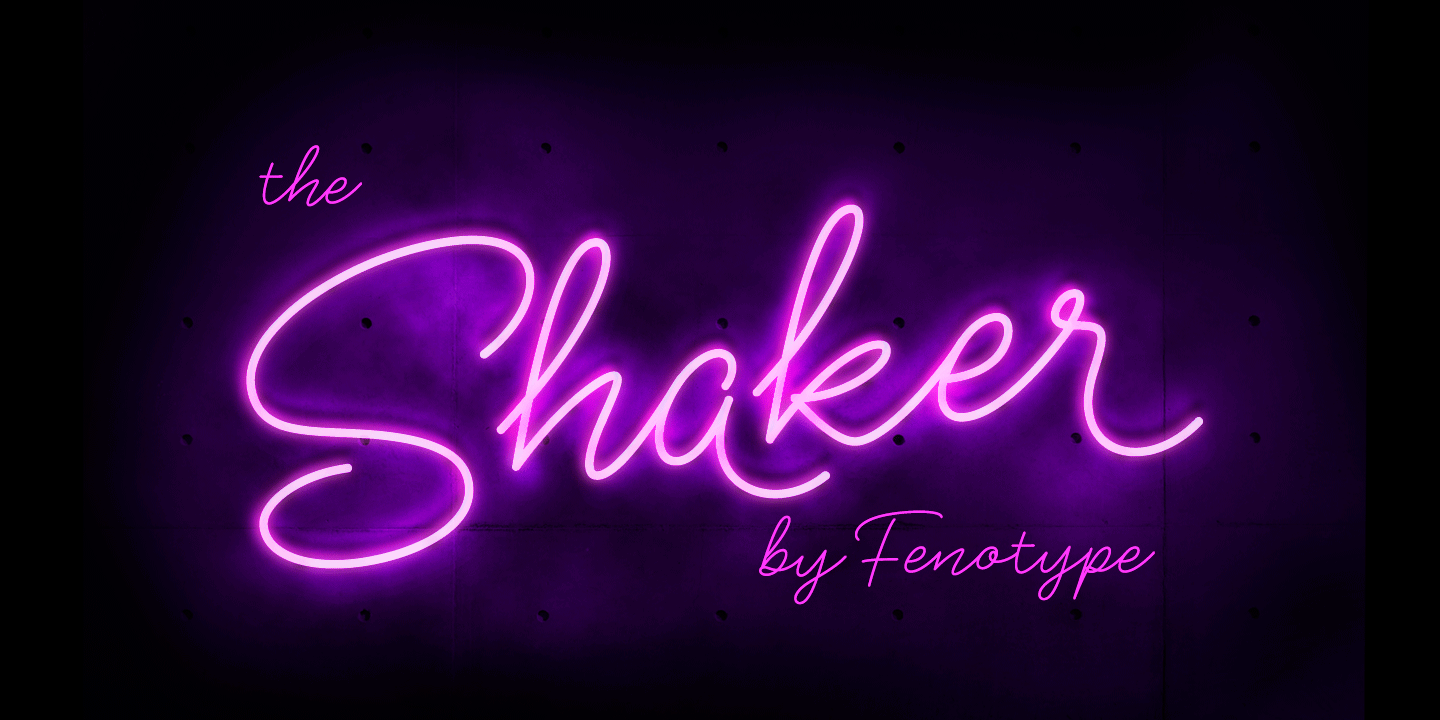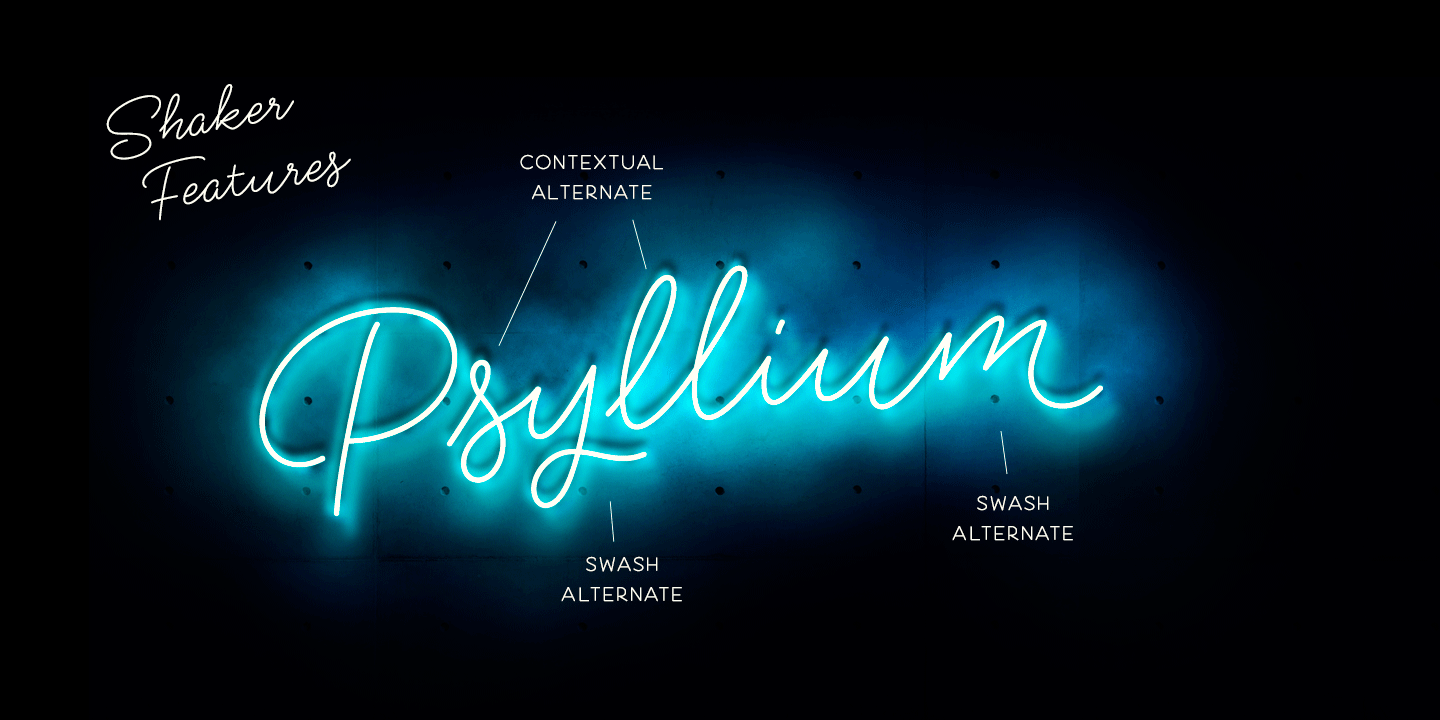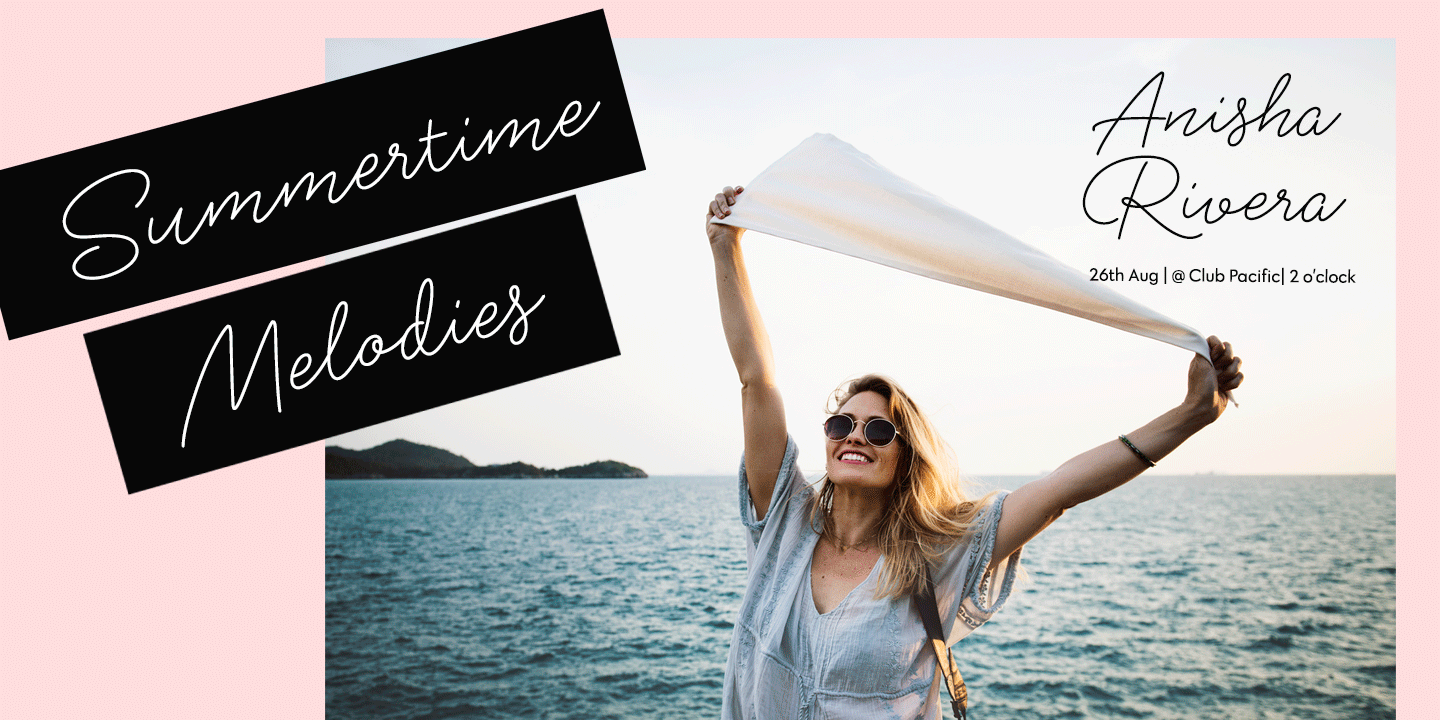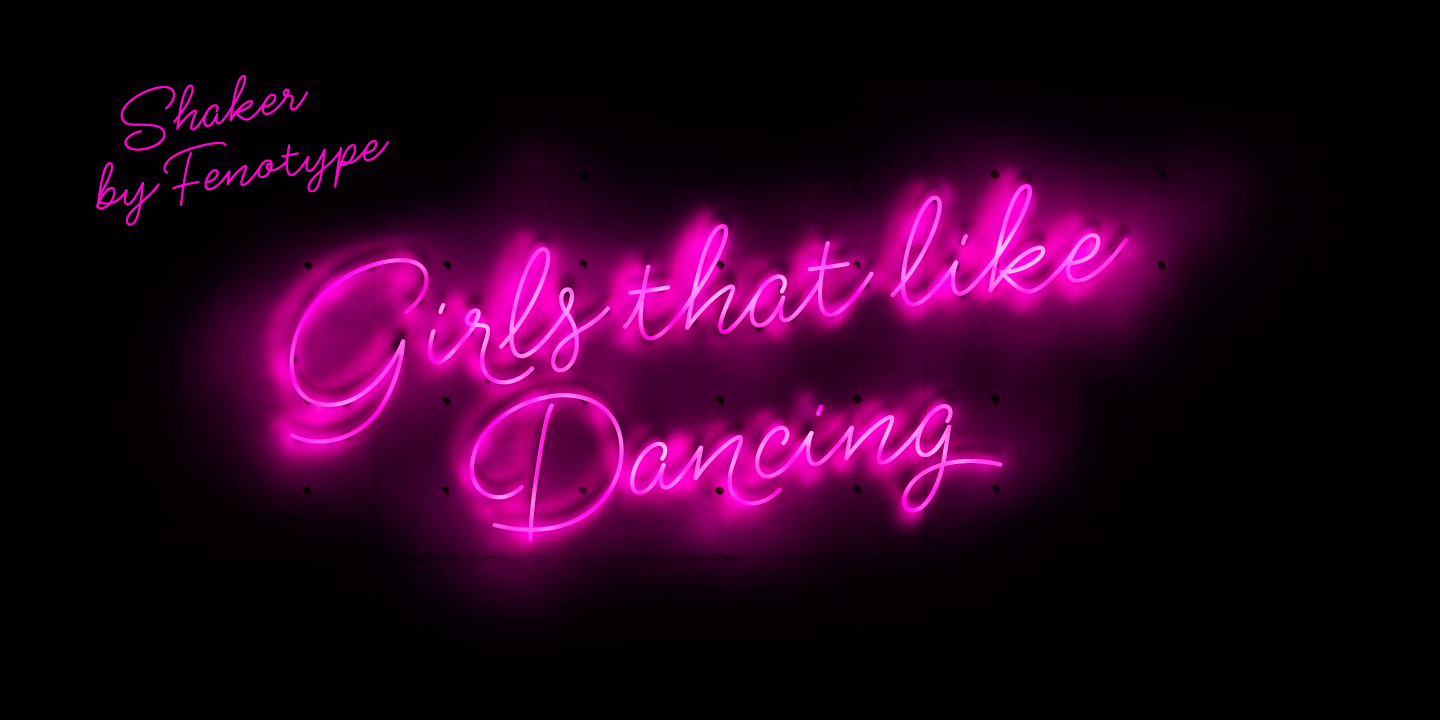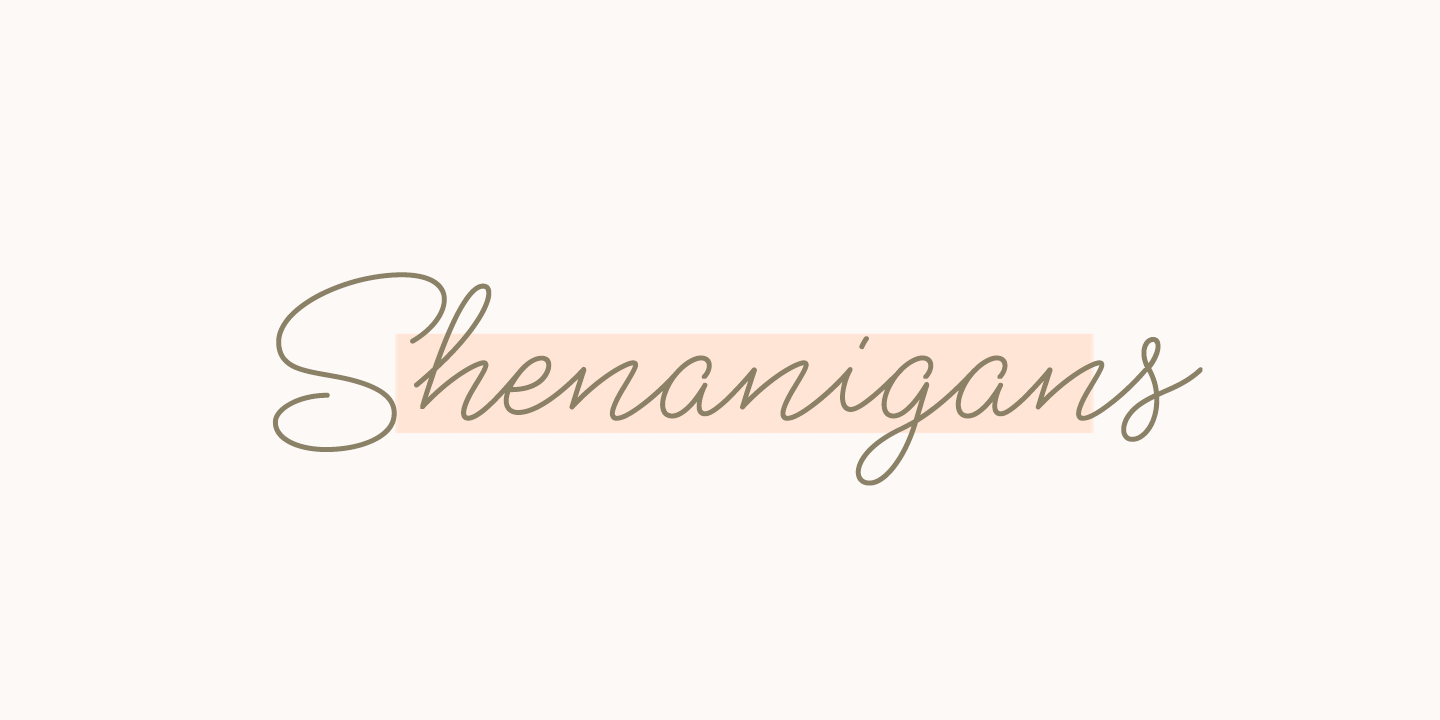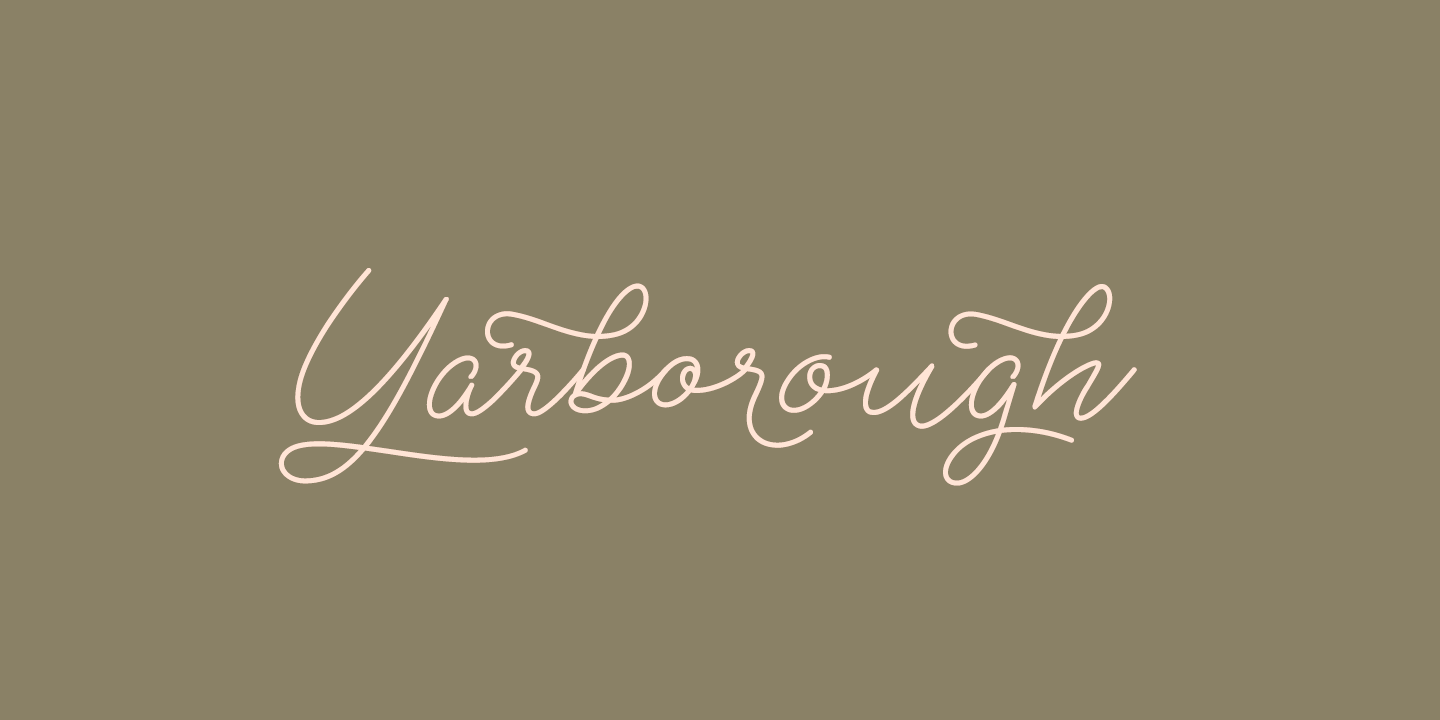
Shaker
Shaker is a neon style monoline Script. Shaker has Swash Alternates for every uppercarse and lowercase standard character and it's equipped with Contextual Alternates that keep the flow and connections smooth. Shaker is great for headlines, packaging, neon sign or as a logotype or any display use.